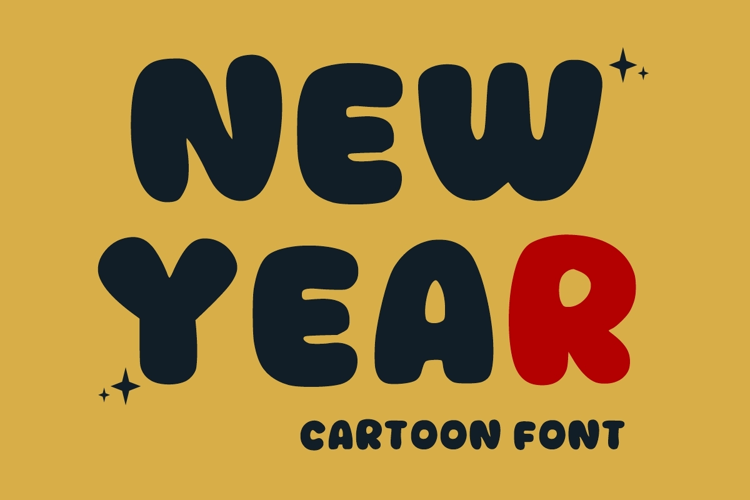
New Year
New Year is a bold cartoon display font. Whether you’re using it for crafts, digital designs, presentations, or making greeting cards, cover books, or posters for kids, this font has the potential to become your favorite go-to font, no matter the occasion!
New Year